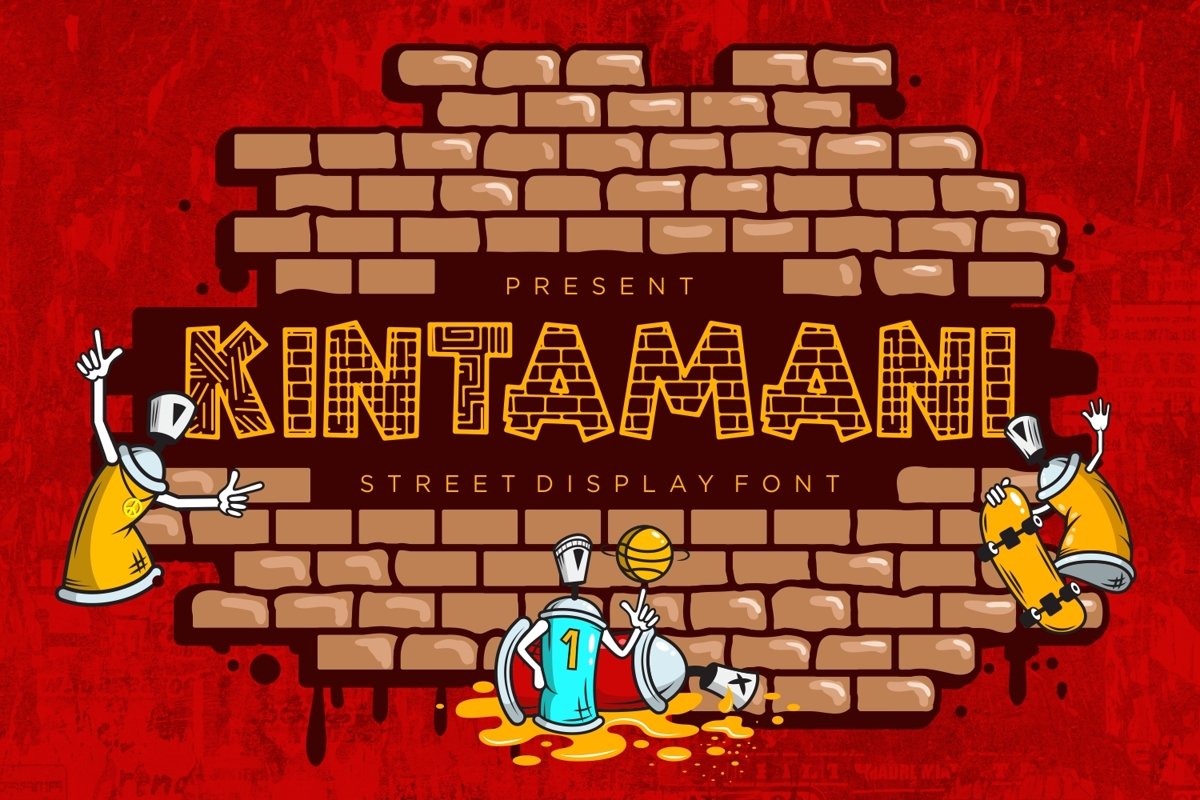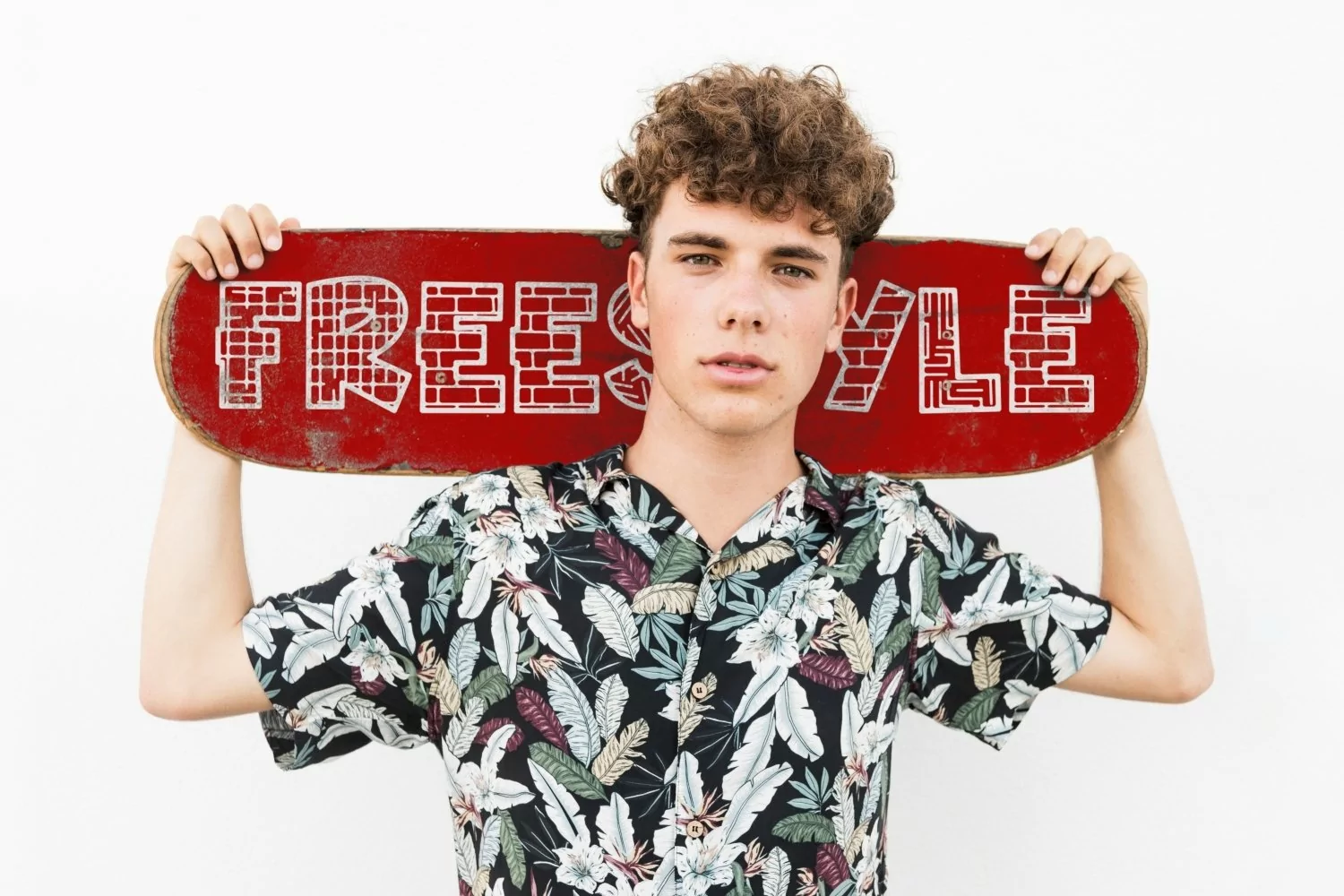
Kintamani is a crafted sans serif display come with street themes. We wanted to create the most decorative characters. It matches applies in some designs such as the logotype, brand, packaging, quotes, poster, kids shirt, cover book, birthday invitation and more custom design. The features uppercase, lowercase, numeral, punctuation & symbol, multilingual support, PUA encoded (fully accessible without additional design software).